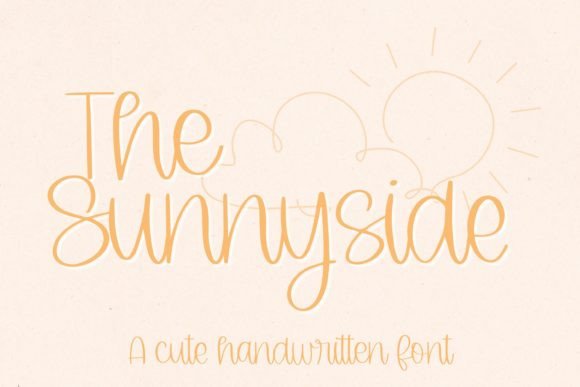
Introducing The Sunnyside, the ultimate Cute Script Font that will elevate your creative projects to new heights! Created by designingdigitals, this charming cursive font is designed specifically for Cricut enthusiasts and anyone in search of the best font for a script. With its elegant curves and smooth strokes, The Sunnyside adds a delightful touch to invitations, greeting cards, and personalized crafts.
Crafted with love and attention to detail, this adorable script font is perfect for expressing your creativity. Its versatility allows you to create stunning works of art that will leave a lasting impression. Whether you're designing for a special occasion or simply want to add a touch of whimsy to your projects, The Sunnyside is the perfect choice.
Compatible with Cricut font SVG designs, this font ensures seamless integration with your cutting machine, making it easier than ever to bring your ideas to life. The Sunnyside allows you to effortlessly transform your designs into captivating masterpieces.
But what sets The Sunnyside apart from other script fonts? It's not just a font; it's an experience. Each letter is carefully crafted with a touch of elegance and a dash of personality. Every stroke showcases the artist's dedication to creating a truly unique and eye-catching typeface.
Whether you're a professional designer or a passionate hobbyist, The Sunnyside is a must-have in your font collection. It sparks imagination, ignites creativity, and adds a sense of charm to every project. Don't miss out on the opportunity to own this gem.